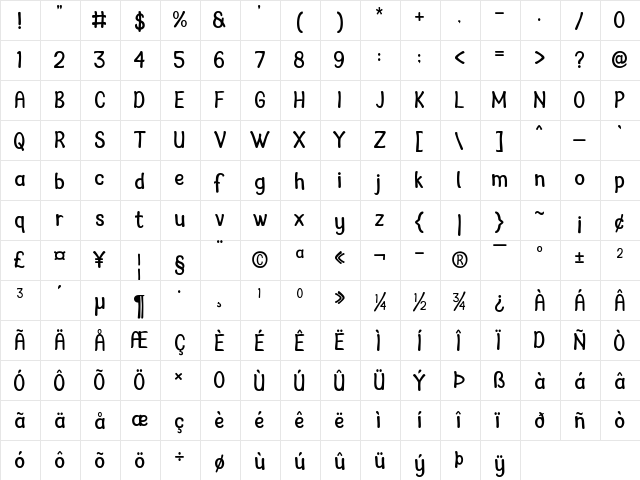
Bencoleng Regular
| Foundry | Sons Of Baidlowi |
| Designer | azmilbahar |
Design Context for Bencoleng Typeface
Bencoleng offers clean, dependable letterforms without strong stylistic allegiance, making it a practical choice for designers who need flexibility.